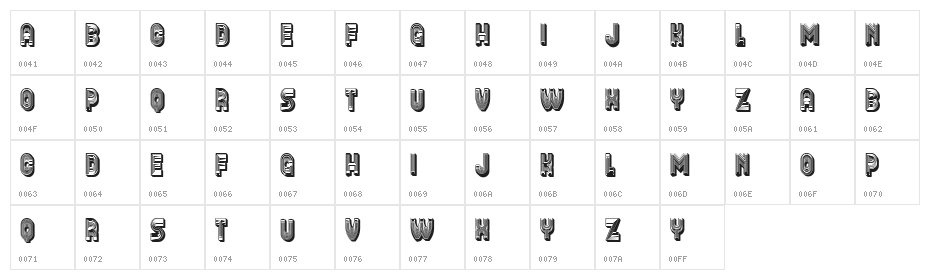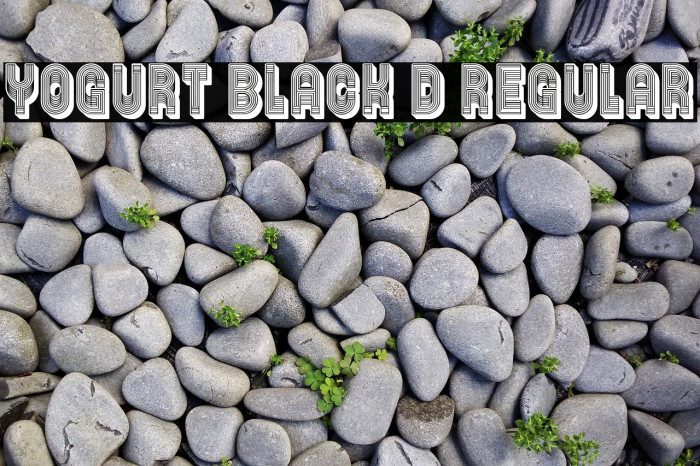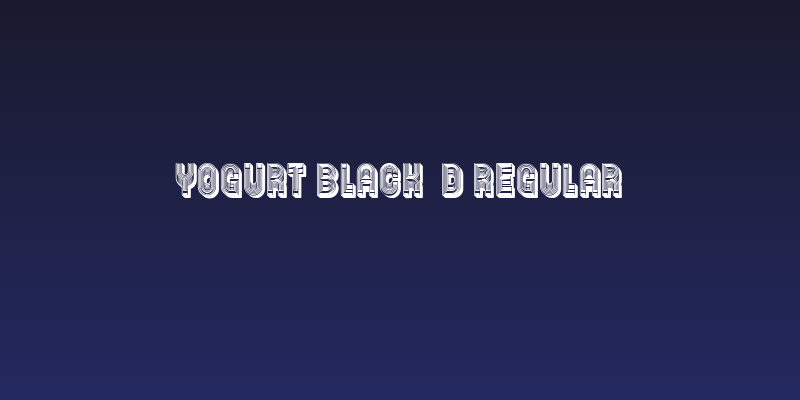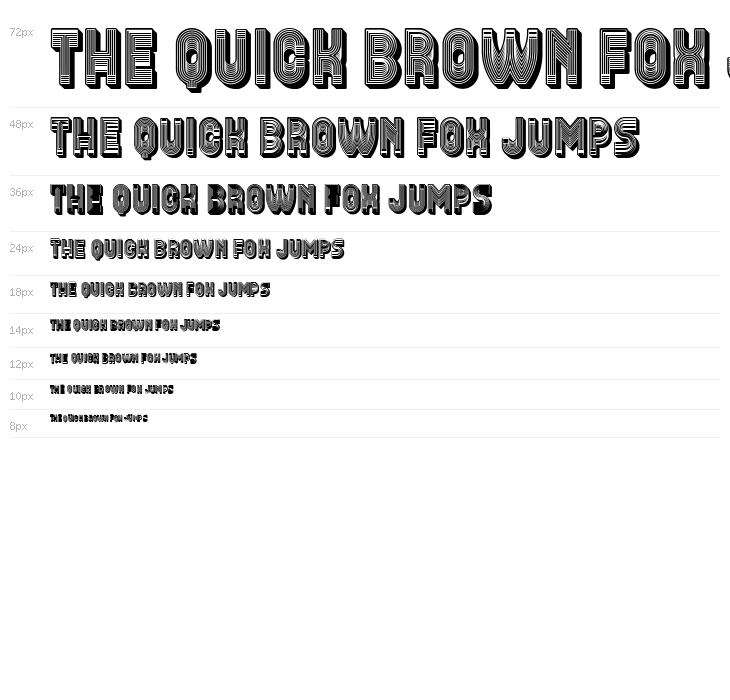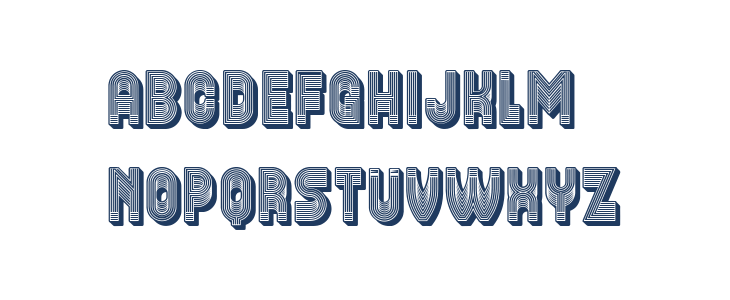
Yogurt Black 3D Regular Font
Yogurt Black 3D Regular Description
This font features a bold, three-dimensional appearance with a layered, striped design that creates a striking visual effect. The characters are uppercase and exhibit a geometric structure with sharp angles and clean lines. The 3D effect is achieved through multiple parallel lines that give depth and texture, making each letter stand out prominently. This style is reminiscent of retro or vintage aesthetics, often seen in signage or posters from the mid-20th century. The font's unique design makes it highly decorative and eye-catching, suitable for projects that require a strong visual impact.
| Proposed Projects | Ideal for retro-themed posters, signage, branding, and any project needing a bold, decorative typeface. |